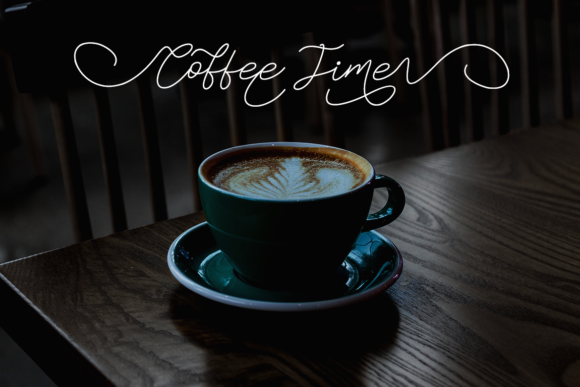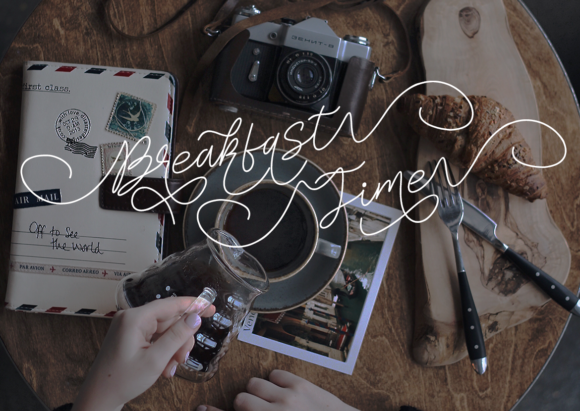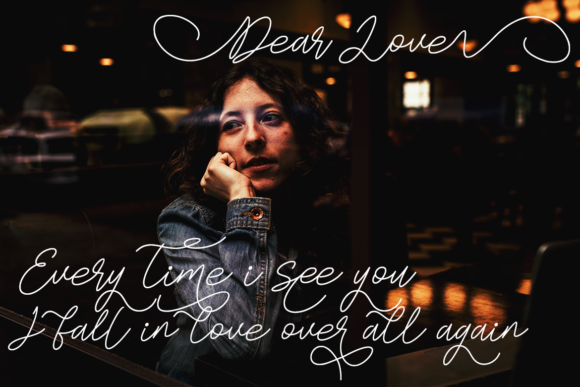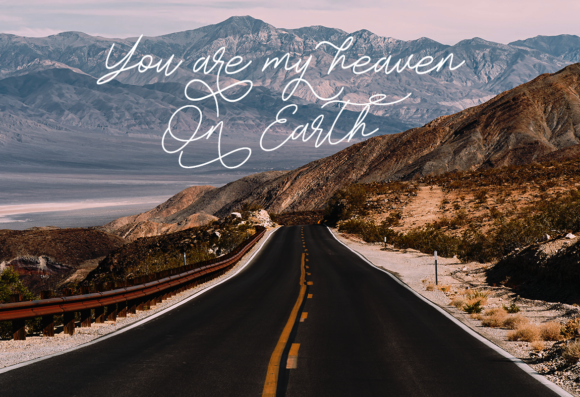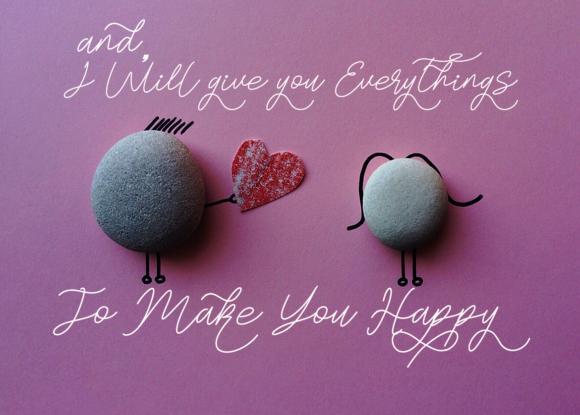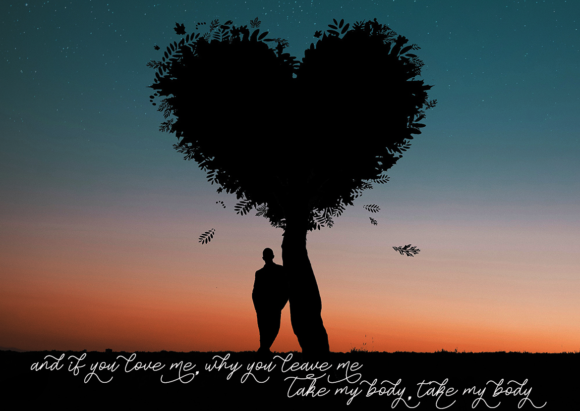
Beatherlove Font
About Beatherlove Font
Beatherlove feels equally charming and elegant. This stunning script font is a stylish homage to classic calligraphy. It features a varying baseline, smooth lines, gorgeous glyphs and stunning alternates.